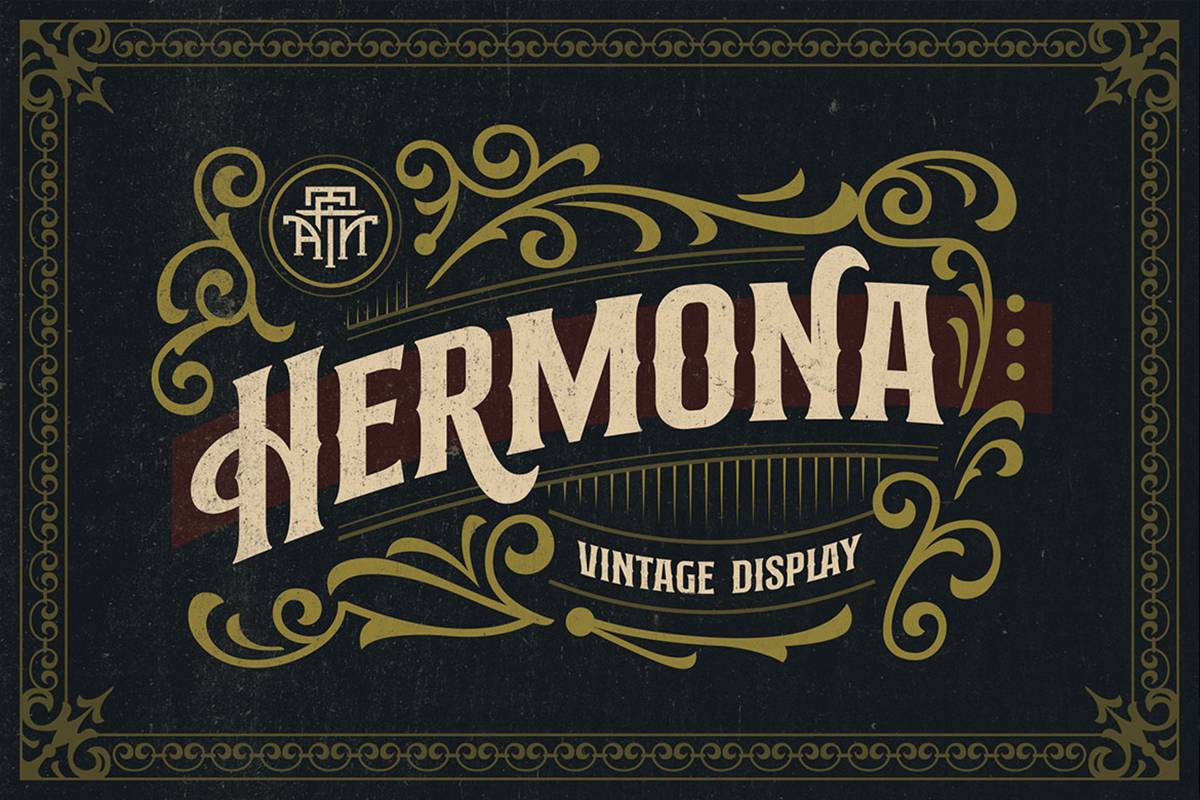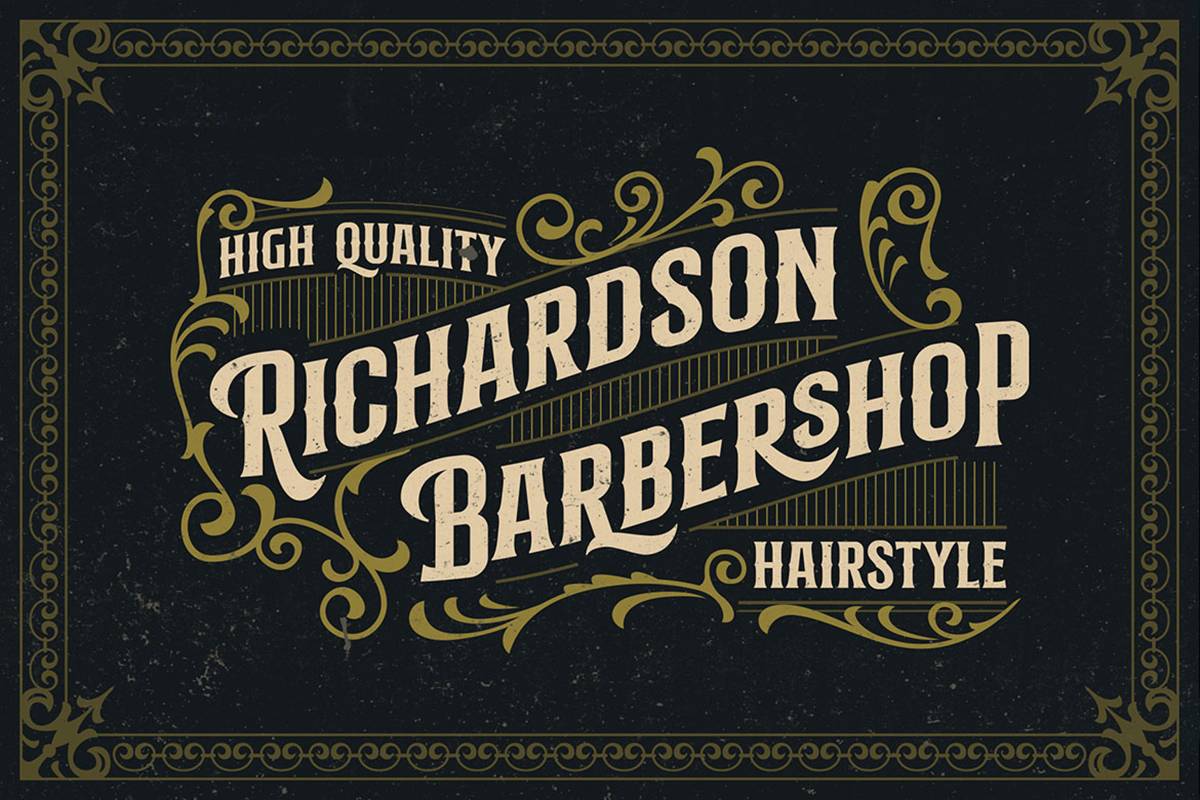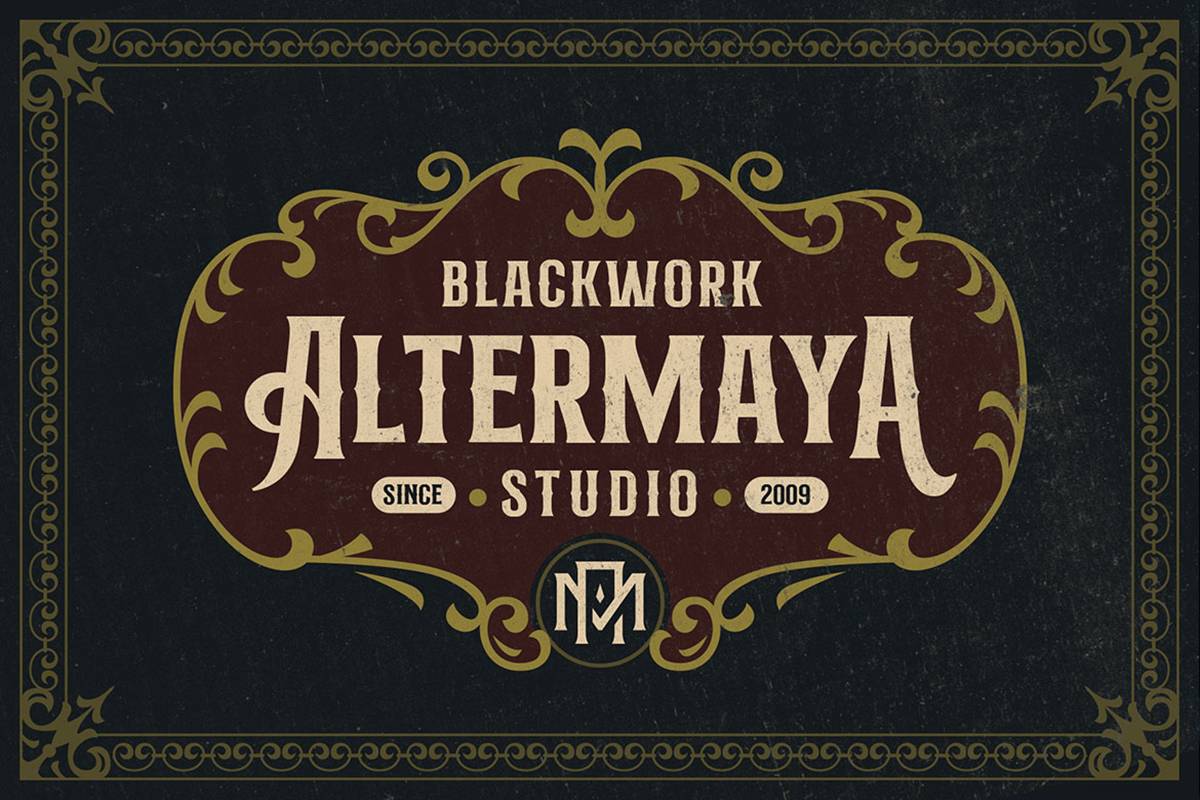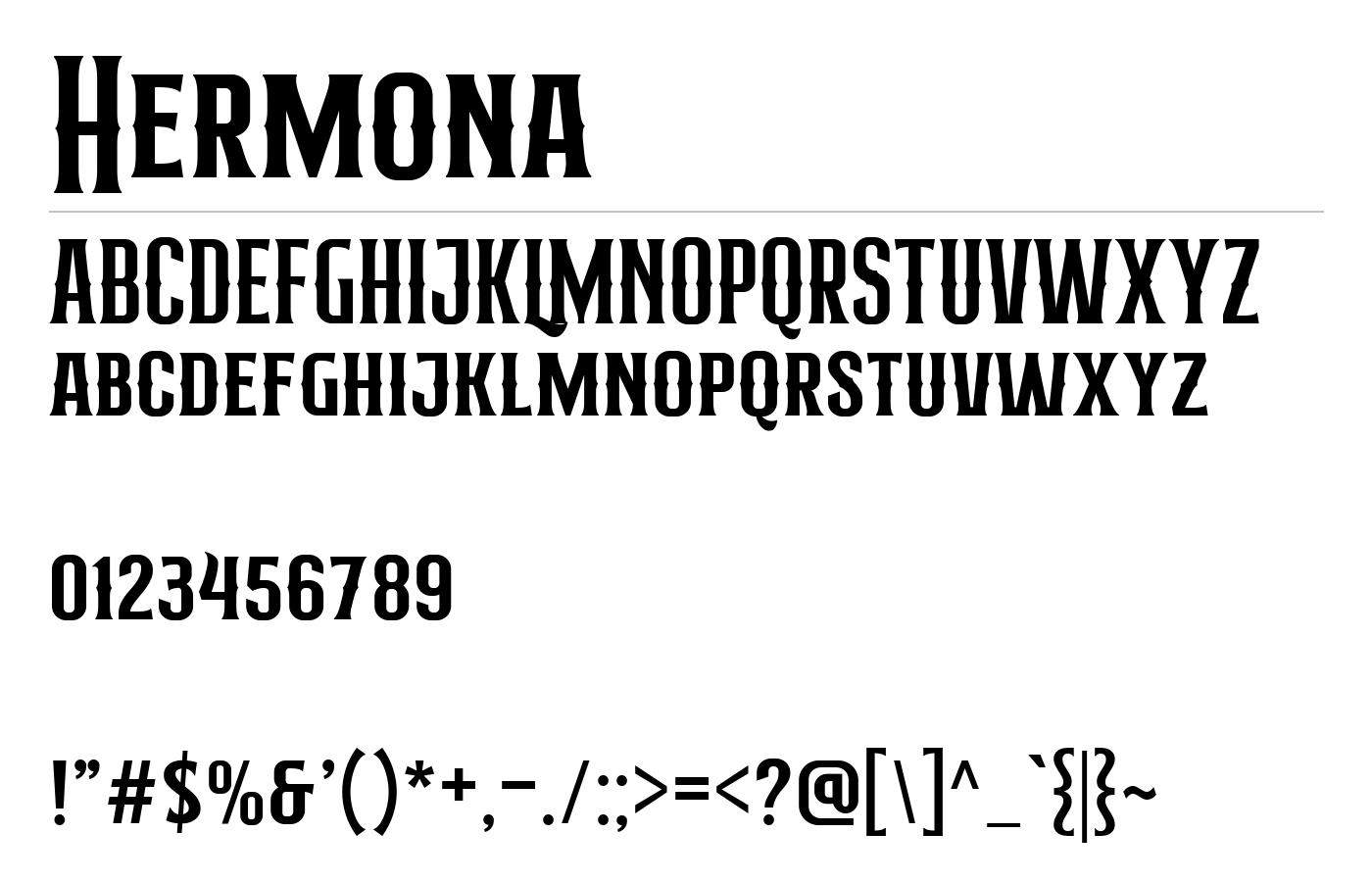
Hermona is a bold, condensed serif font with a strong presence and a vintage Western style, featuring high contrast between thick and thin strokes and unique, bracketed serifs that add character. Its tall, narrow letterforms and distinctive details make it ideal for attention-grabbing headlines, logos, and branding that seek a rugged yet elegant look. This font works best in projects that want to evoke a nostalgic or adventurous mood, like posters, packaging, and fashion branding.
Hermona Font
About Hermona Font
| Font family | Hermona Font |